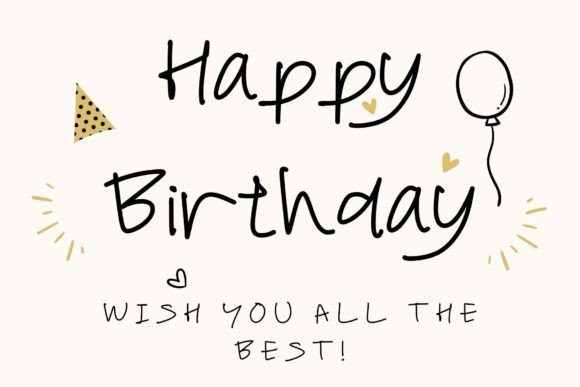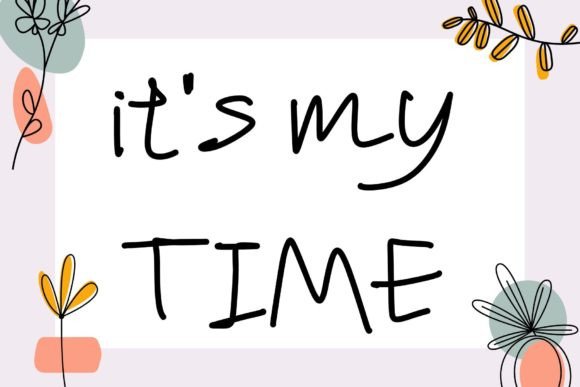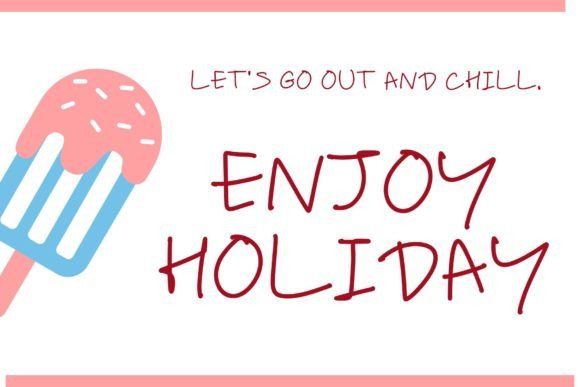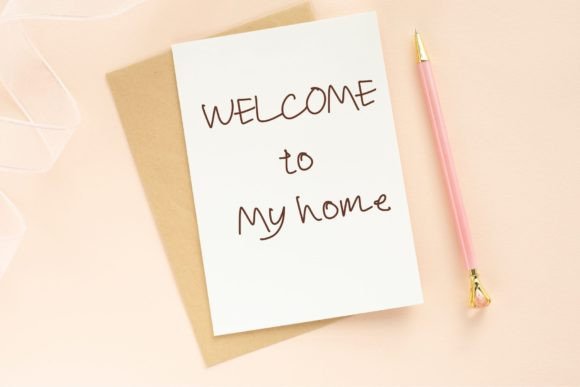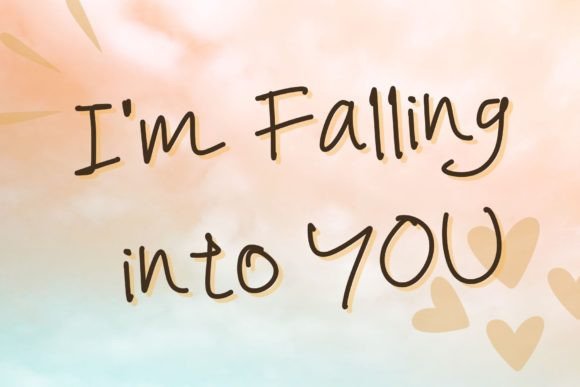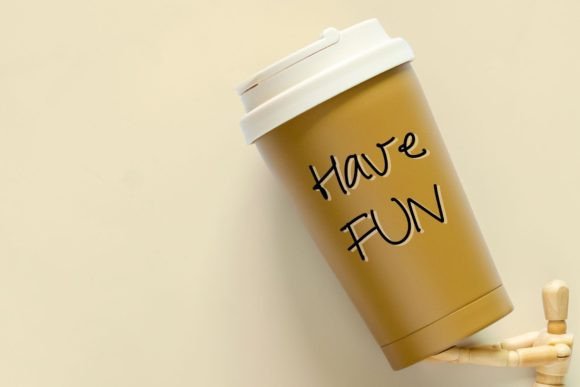
Introducing Classy Francesca Font: Elevate Your Designs with Elegant Chaos
In the world of typography, few fonts manage to strike a balance between elegance and playfulness. Classy Francesca Font is one such stylishly messy handwritten typeface that exudes character and flair, making it a perfect addition to your design arsenal. With its artistic strokes and sophisticated charm, Classy Francesca effortlessly combines refinement with a touch of chaos, resulting in a unique and eye-catching look that’s sure to captivate your audience.
The Art of Imperfection: What Makes Classy Francesca Stand Out
Classy Francesca Font is not your average, run-of-the-mill typeface. Its stylishly messy appearance is a deliberate design choice that sets it apart from more traditional fonts. The irregularities in its strokes and letters give it a human touch, making it feel more approachable and relatable. This font’s imperfections are what make it classy and sophisticated, adding a layer of depth and personality to your designs.
Perfect for Creative Projects and Branding
Whether you’re a designer, crafty DIY enthusiast, or a small business owner looking to create a unique brand identity, Classy Francesca Font is an excellent choice. Its versatility makes it suitable for a wide range of applications, including:
- Invitations: Add a touch of elegance and whimsy to your wedding invitations, birthday party invites, or any other special occasion.
- Branding: Create a memorable brand identity with Classy Francesca Font, perfect for logos, business cards, and marketing materials.
- Creative Projects: Use Classy Francesca Font to add a personal touch to your art, crafts, or DIY projects, such as handmade cards, journaling, or scrapbooking.
Key Features of Classy Francesca Font
So, what makes Classy Francesca Font so special? Here are some of its key features:
- Handwritten style: Classy Francesca Font boasts a beautiful, handwritten appearance that’s both elegant and playful.
- Stylishly messy: The font’s irregularities and imperfections give it a unique, artistic feel.
- High-quality design: Classy Francesca Font is designed with precision and attention to detail, ensuring that it looks great in any context.
- Versatile: Use Classy Francesca Font for a wide range of applications, from digital designs to print materials.
Tips for Using Classy Francesca Font Effectively
To get the most out of Classy Francesca Font, here are some tips to keep in mind:
- Mix and match: Combine Classy Francesca Font with other fonts to create a unique and visually appealing design.
- Play with sizes: Experiment with different font sizes to add emphasis and create visual hierarchy.
- Use it sparingly: While Classy Francesca Font is beautiful, it’s best used in moderation. Use it as an accent font to add a touch of personality to your designs.
Classy Francesca Font is a stylishly messy handwritten typeface that’s sure to elevate your designs. With its elegant chaos, artistic strokes, and sophisticated charm, this font is perfect for designers, crafters, and small business owners looking to add a touch of personality to their work. Whether you’re creating invitations, branding materials, or creative projects, Classy Francesca Font is an excellent choice. So why settle for ordinary fonts when you can add a touch of classy chaos to your designs?